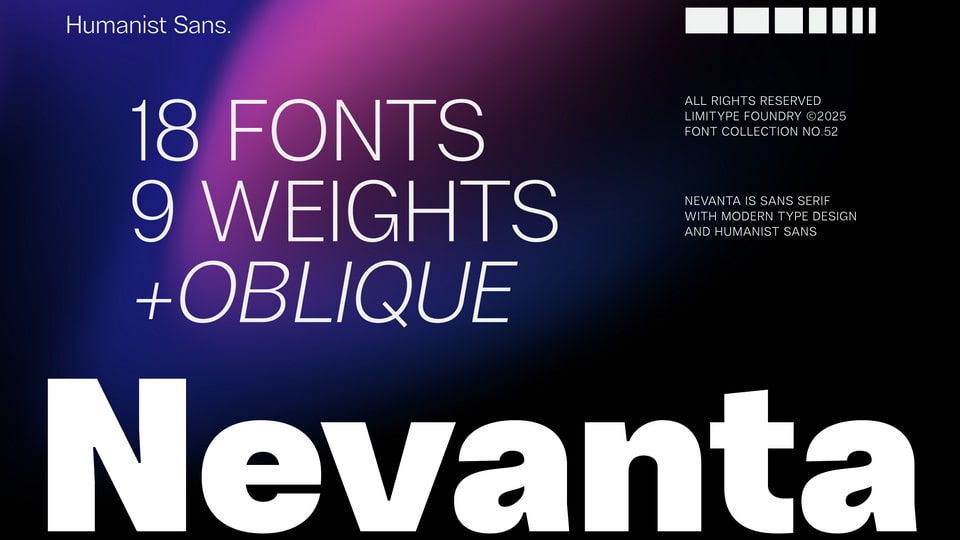
Download Nevanta font, a modern sans serif typeface with 18 styles (9 weights + Oblique), designed for professional, clean, and versatile typography.